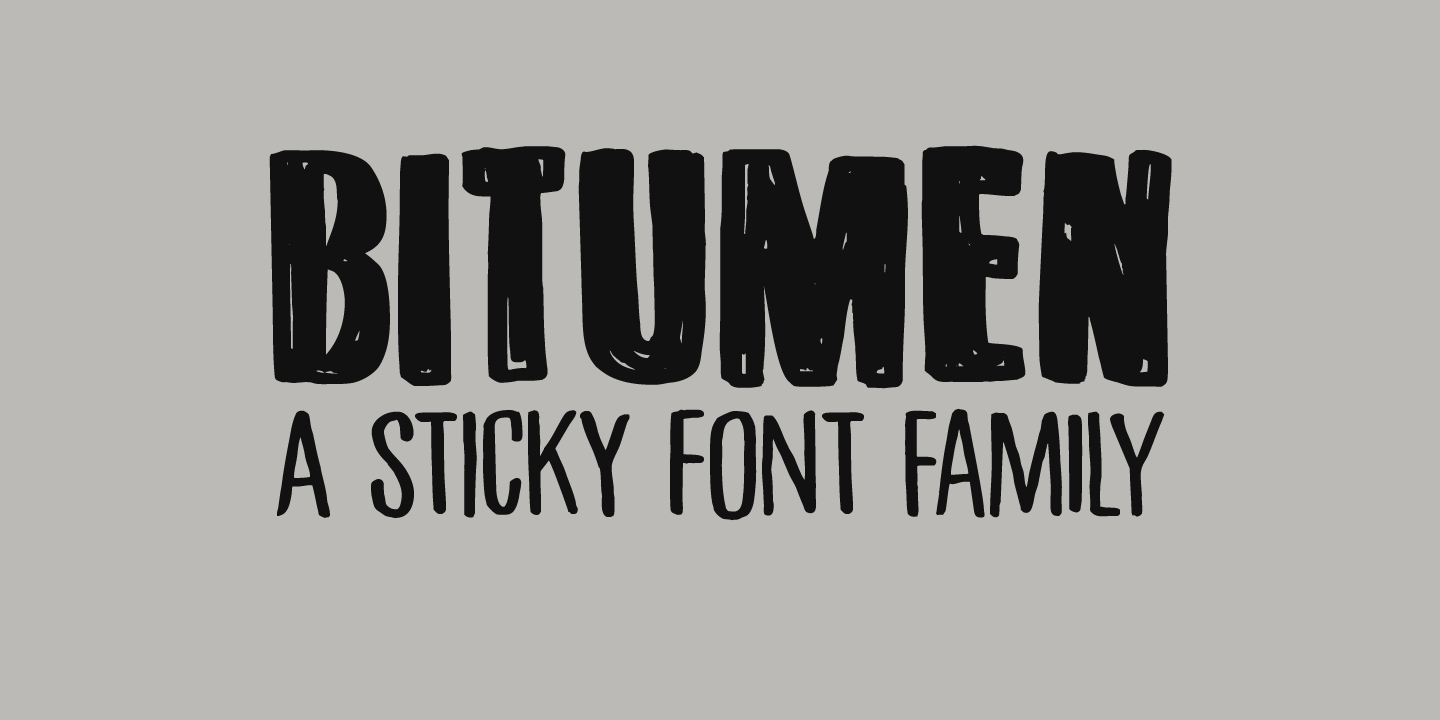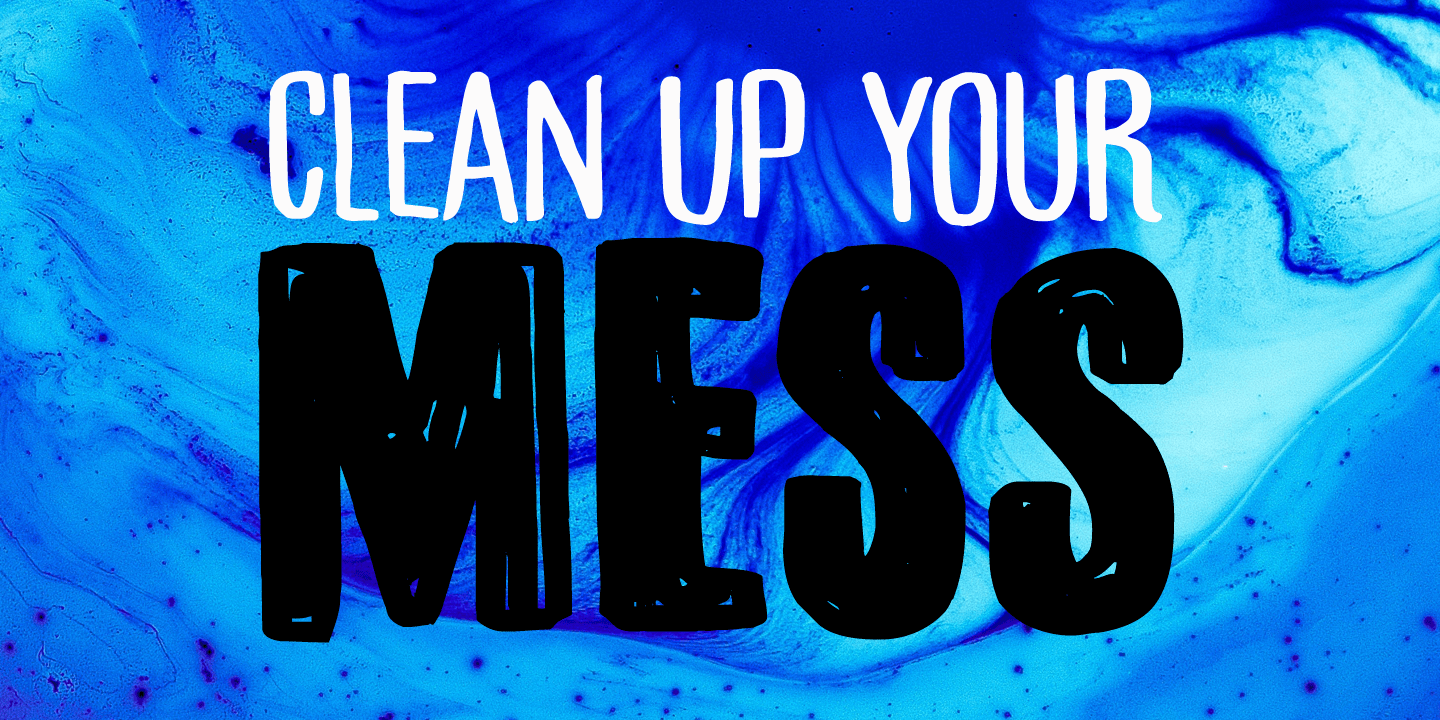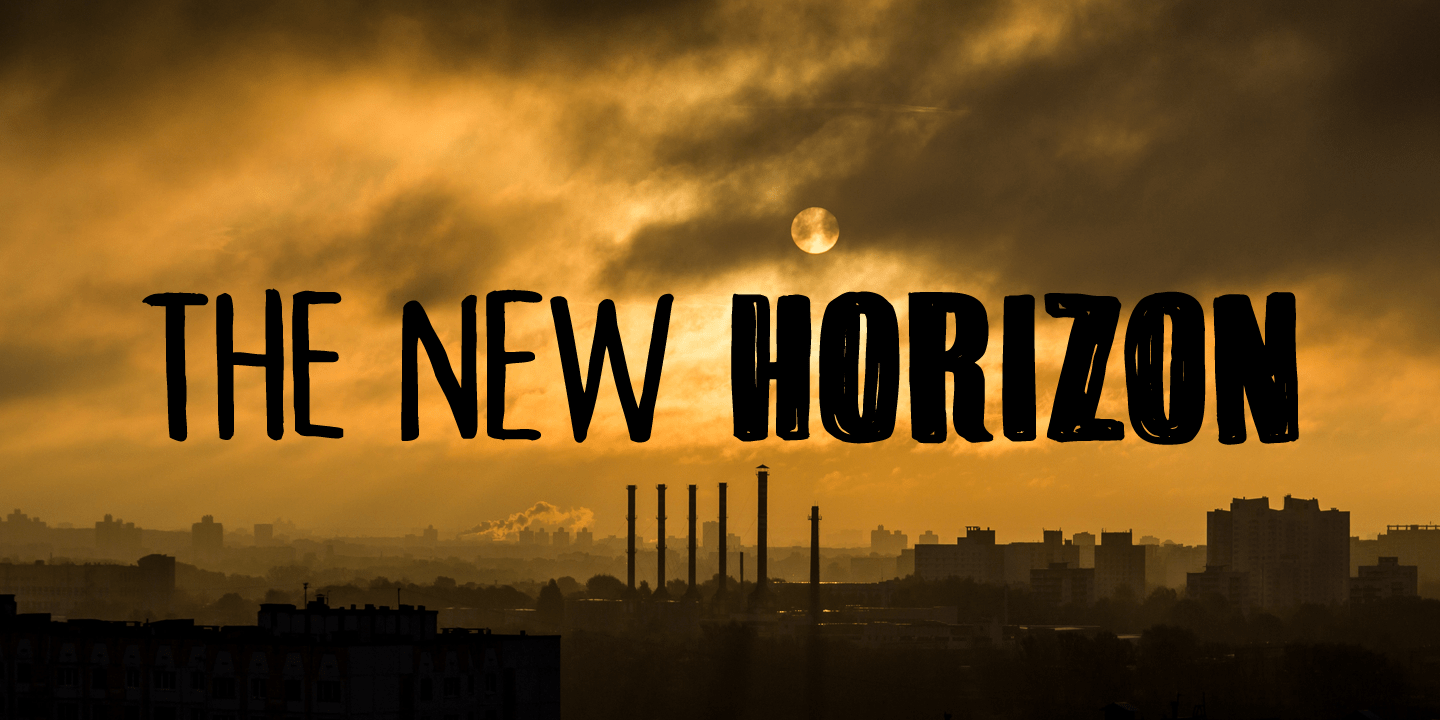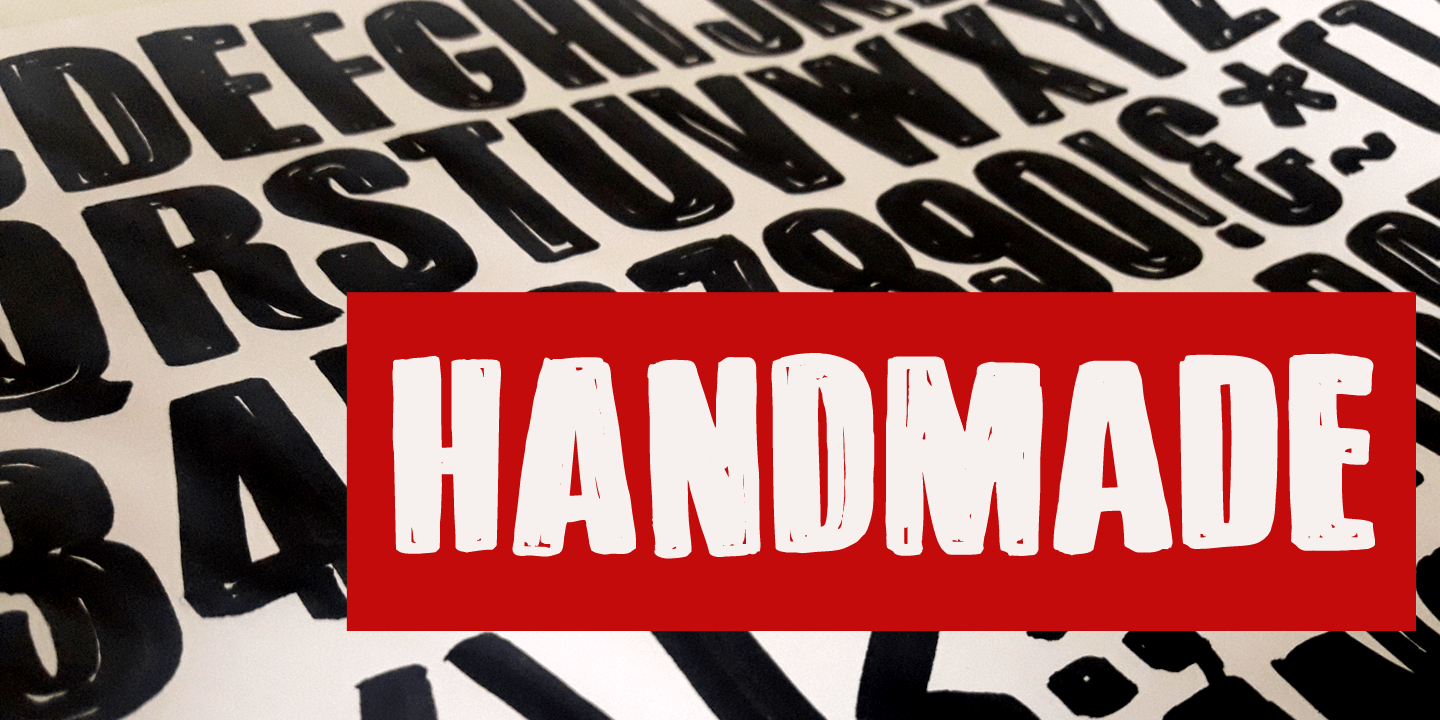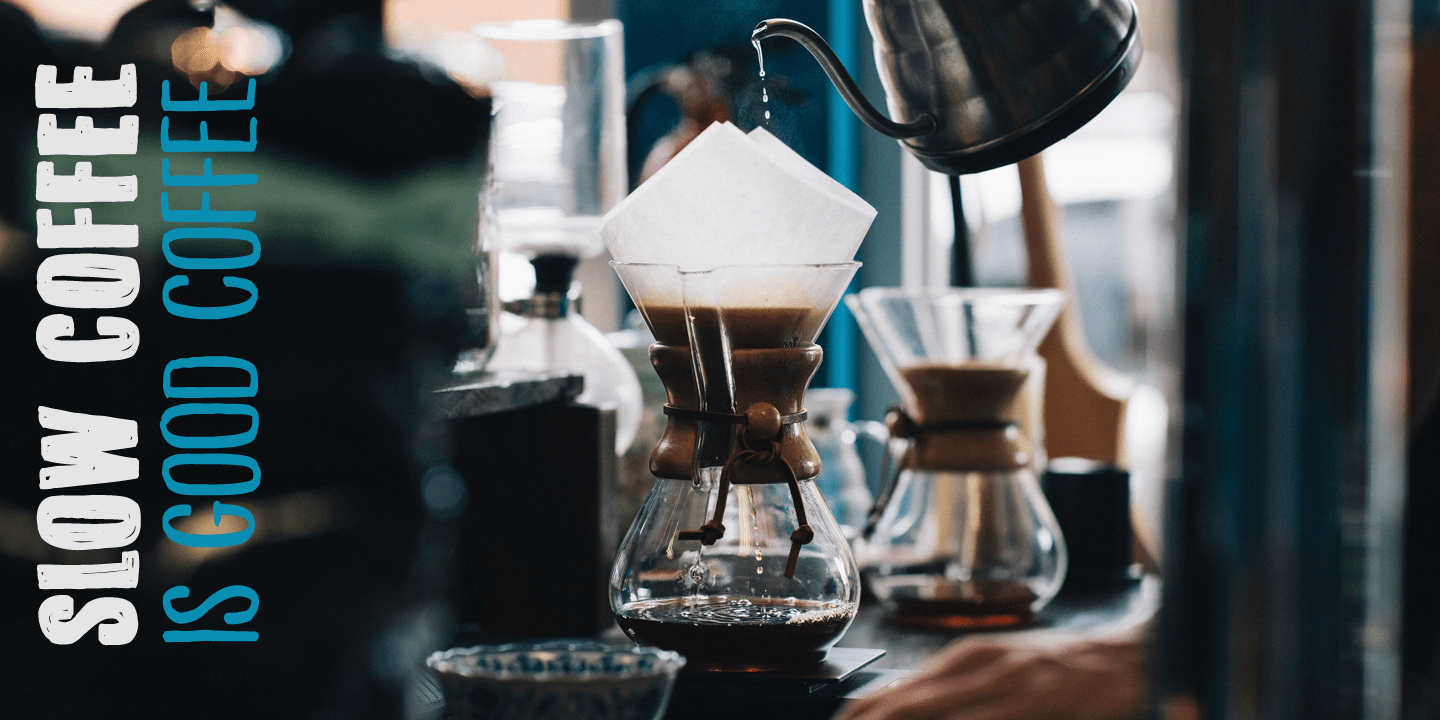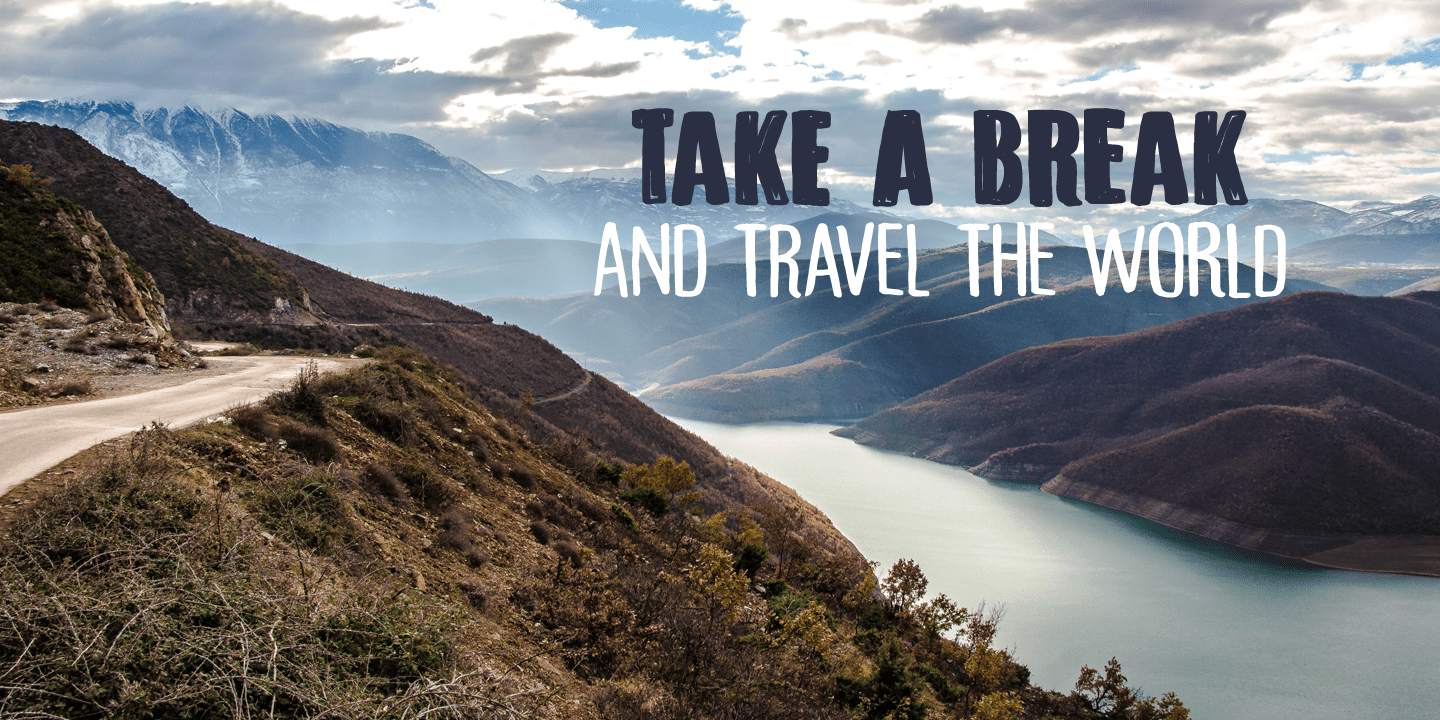
Bitumen
Bitumen is a sticky, black, and highly viscous liquid form of petroleum. When I created this font, it reminded me a bit of asphalt, hence the name. Bitumen is a handmade font based on Schmallfette Grotesk by Walter Haettenschweiler and Haettenschweiler font. The font was made with a Japanese brush pen, hence the bold lines. Bitumen comes in two styles: the regular, fat display font and a lighter version - both with italics.